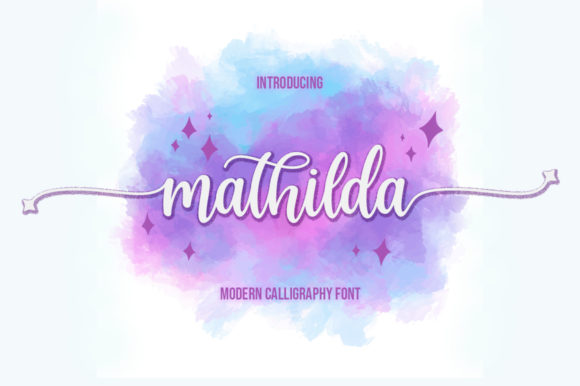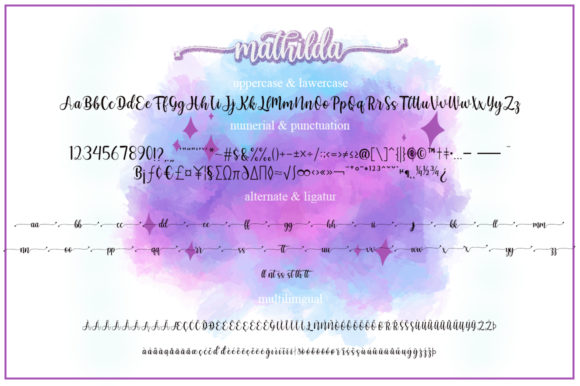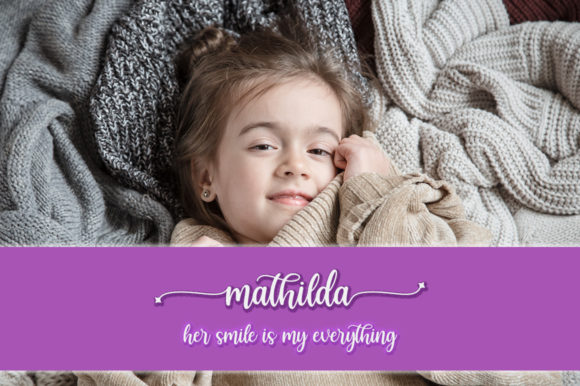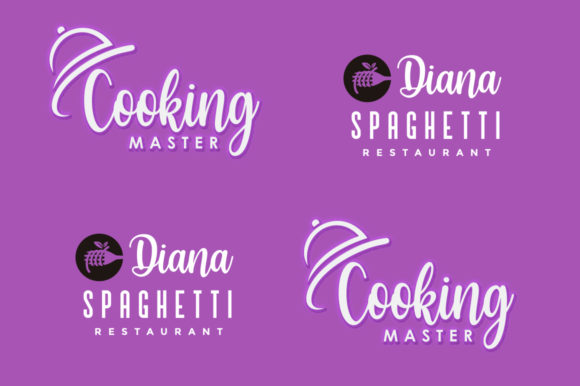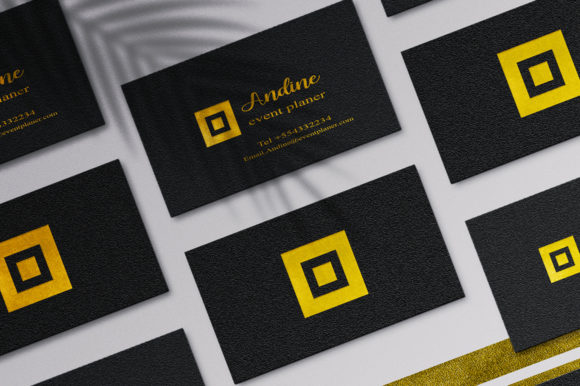
Mathilda is a stunning and versatile script font that exudes elegance and readability. With its captivating and graceful style, Mathilda is the perfect choice for a wide range of design projects, adding a touch of sophistication and charm to each piece.
When it comes to wedding invitations, Mathilda shines, creating a beautiful and romantic atmosphere. The flowing and intricate letterforms of this script font give your invitations a graceful and personalized touch, setting the tone for a memorable event. Additionally, Mathilda adds a touch of refinement to thank you cards, greeting cards, and quotes, making each message feel heartfelt and special.
Logos and business cards designed with Mathilda are instantly elevated with its captivating and adaptable style. The script font brings a sense of professionalism and elegance to your brand identity, making a lasting impression on your audience. Its readability ensures that your logo or business card stands out and communicates your message effectively.
Mathilda’s versatility extends to various design projects, including labels, packaging, social media posts, and more. Its adaptable style allows it to seamlessly integrate with different aesthetics and design themes, adding a handwritten touch that captivates attention. Whether you’re creating a label for a product or designing eye-catching social media graphics, Mathilda’s ravishing script font will enhance the overall visual appeal and leave a lasting impact.
Furthermore, Mathilda is PUA encoded, which means you can easily access all of the glyphs and swashes. This allows you to add decorative elements, alternate characters, and flourishes effortlessly, giving your designs a unique and personalized touch. The availability of these additional glyphs and swashes provides endless creative possibilities, allowing you to customize and enhance your text to match your creative vision.
In summary, Mathilda is a ravishing and adaptable script font that adds a touch of elegance and readability to your designs. Its stunning appearance makes it a perfect choice for wedding invitations, thank you cards, quotes, greeting cards, logos, business cards, and more. With its PUA encoding, accessing the glyphs and swashes is a breeze, allowing you to enhance your designs with unique and personalized elements. Give your designs the grace and sophistication they deserve with Mathilda.